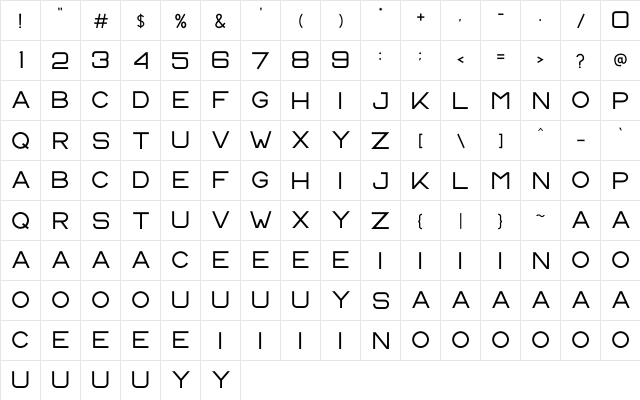
CS Harley Regular
Design Context for CS Harley Typeface
CS Harley offers clean, dependable letterforms without strong stylistic allegiance, making it a practical choice for designers who need flexibility.